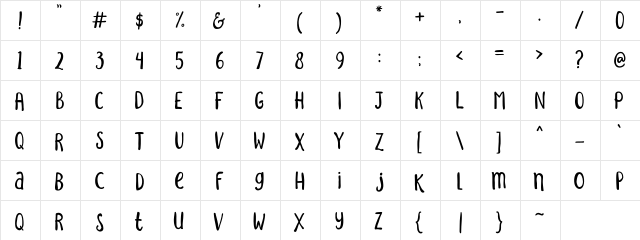
Sakra Regular Font Preview
Sakra Regular
Sakra Regular Font Details
| Foundry | Letterhend Studio |
| Designer | Letterhend Studio |
Design Context for Sakra Typeface
Sakra is a composed and adaptable typeface that performs quietly and consistently across a wide range of design contexts.